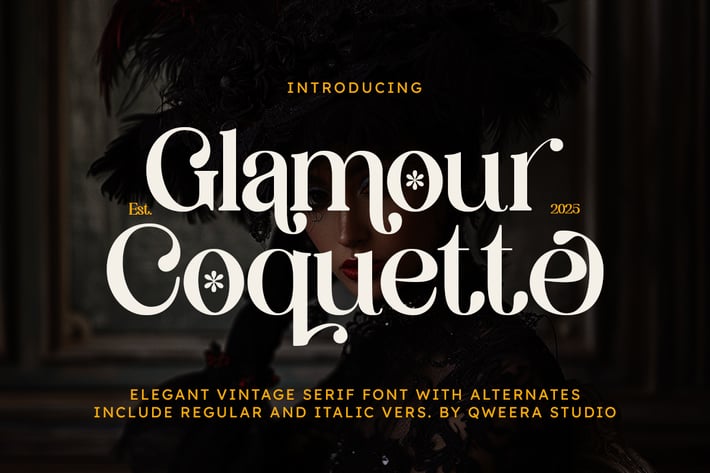
Glamour Coquette - Elegant Vintage Logo Font
Glamour Coquette – Elegant Vintage Serif Font for Timeless Luxury Designs
Glamour Coquette is an exquisite vintage-inspired serif font that radiates sophistication and old-world charm. Featuring both regular and italic styles with delicate alternates and ornate ligatures, this typeface is perfect for elevating luxury branding, feminine logos, premium packaging, and elegant editorial designs.
Where Vintage Elegance Meets Modern Refinement
Meticulously crafted with flowing serifs and graceful curves, Glamour Coquette captures the romance of classic typography while maintaining contemporary versatility. The carefully designed alternates and ligatures allow you to create stunning custom lettering combinations for truly unique designs.
Premium Features Include:
- Romantic Serif Design - Perfect for feminine branding and luxury aesthetics
- Complete Character Set - Regular & italic versions for harmonious compositions
- Ornate Alternates - 15+ special glyphs for custom typography
- Decorative Ligatures - Flowing letter connections for elegant wordmarks
- Versatile Application - Ideal from perfume packaging to wedding stationery
- Multilingual Support - Extensive Latin language coverage
Transform Your Projects with Timeless Elegance
Glamour Coquette adds instant vintage luxury to:
- Feminine beauty branding
- High-end product packaging
- Elegant wedding invitations
- Fashion editorials
- Luxury logo design